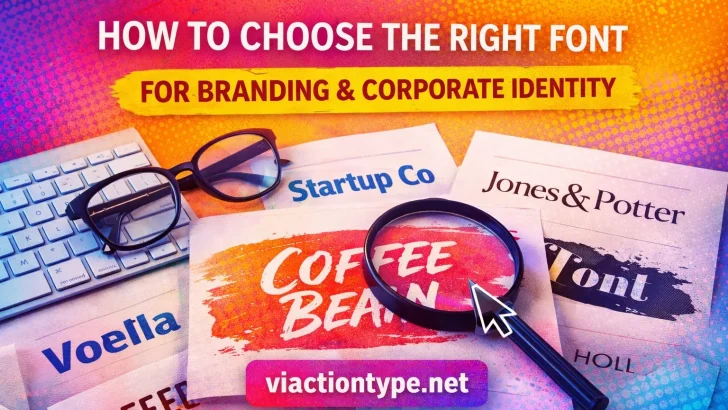
Choosing the right font for branding and corporate identity is one of the most important visual decisions a business can make. Typography is not just about readability โ it defines personality, builds trust, and shapes how audiences perceive a brand.
Why Font Choice Matters in Branding
Fonts act as a brandโs visual voice. Before customers read your message, they feel your typography.
The right branding font helps a company appear:
Professional and trustworthy
Modern or classic
Bold or elegant
Creative or corporate
Friendly or premium
The wrong font, however, can weaken credibility and create inconsistent brand perception.
Thatโs why professional brands invest in carefully selected typefaces instead of using default system fonts.
Step 1 โ Define Your Brand Personality First
Before choosing a font, clarify the brandโs character.
Ask these questions:
Is the brand formal or casual?
Modern or vintage?
Bold or minimal?
Corporate or expressive?
Premium or approachable?
Then match personality to font style:
Sans Serif Fonts
Best for: modern, tech, startup, corporate, UI branding
Clean, versatile, and highly readable.
Serif Fonts
Best for: luxury, editorial, heritage, finance
Classic, stable, and authoritative.
Display & Brush Fonts
Best for: creative brands, lifestyle products, packaging, campaigns
Expressive, bold, and attention-grabbing.
Step 2 โ Prioritize Readability and Scalability
A good corporate font must perform well across sizes and platforms.
Check that your chosen font:
Remains readable at small sizes
Looks strong in headlines
Works in both print and digital
Has clean spacing and kerning
Includes multiple weights if needed
Step 3 โ Use Font Pairing for Brand Systems
Most strong brand systems use font pairing, not just one font.
Common pairing strategy:
Primary font โ logo & headlines
Secondary font โ body text & documents
Examples:
Bold display font + clean sans serif
Elegant serif + neutral grotesk
Brush headline font + modern UI font
Step 4 โ Choose Fonts with Strong Character (But Controlled)
Corporate branding needs personality โ but controlled personality.
Look for fonts with:
Unique letter shapes
Recognizable rhythm
Consistent stroke logic
Balanced proportions
Avoid overly decorative fonts for core corporate text โ reserve those for accents, campaigns, or packaging.
Step 5 โ Check Language & Glyph Support
Corporate brands often operate across regions. Make sure your font supports:
Multilingual characters
Accents and diacritics
Symbols and punctuation
Currency signs
Step 7 โ Match Font Style to Branding Use Case
Here are quick recommendations:
Corporate Logo
Choose: distinctive serif or sans serif with strong identity
Startup & Tech Brand
Choose: modern sans serif or geometric font
Lifestyle Brand
Choose: handcrafted, brush, or expressive display font
Luxury Brand
Choose: elegant serif or refined high-contrast font
Creative Campaign
Final Thoughts
Choosing the right font for branding and corporate identity is not just a design task โ itโs a strategic brand decision. The right typeface strengthens recognition, builds trust, and creates long-term visual consistency.
Your typography is your brand voice โ make sure it speaks clearly.